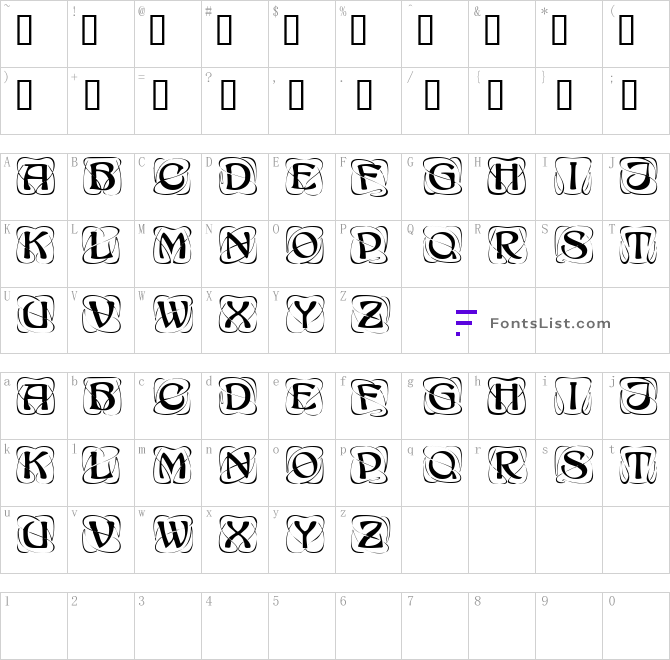
AdageDisplayCapsSSi.ttf is a very beautiful artistic font, AdageDisplayCapsSSi.ttf is widely used in the design and printing of various books and pictures,AdageDisplayCapsSSi.ttf has a strong visual impact,AdageDisplayCapsSSi.ttf is a commonly used font in newspapers, magazines and books, and is used in posters, e-commerce Poster design, store design, logo design, font design and other fields.AdageDisplayCapsSSi.